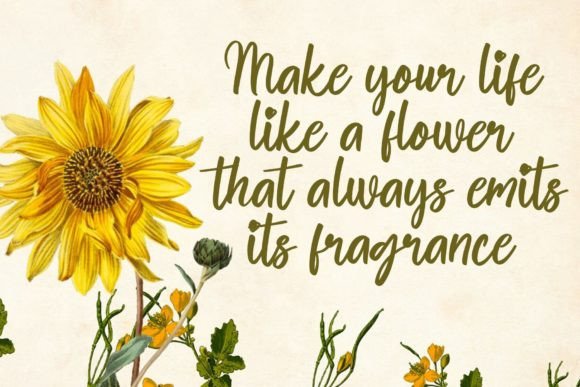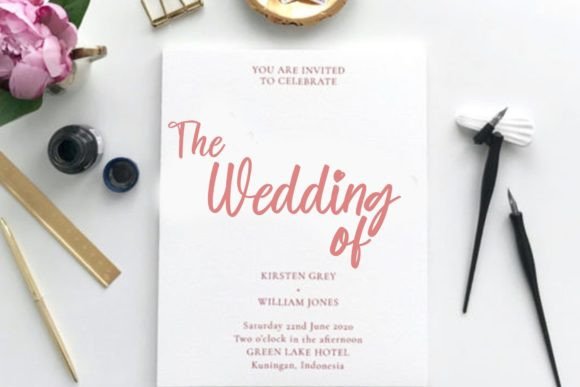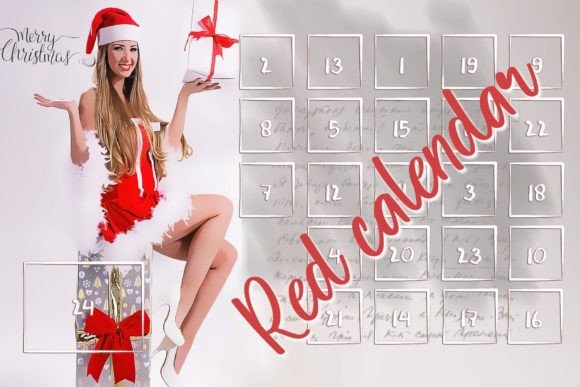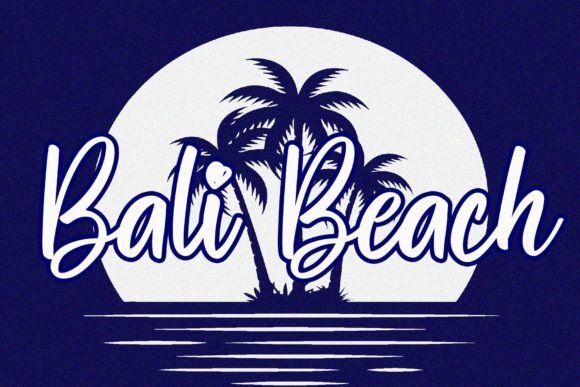
Unleash Your Creativity with Brilliant Font
Have you ever stared at a blank page, trying to spark inspiration for your next design project? The cursor blinks, and your mind goes blank. It’s a moment we’ve all experienced at some point. But what if I told you there’s a secret ingredient to make your designs shine? Enter Brilliant Font, a cool, simple, and playful handwritten font that can breathe life into your creative projects.
This versatile font is perfect for designers looking to add a unique touch to their work. With Brilliant Font, you can elevate your designs to the next level, making them stand out in a crowded market. Whether you’re working on a logo, brochure, or social media campaign, this font is sure to make a lasting impression. So, why settle for ordinary when you can have Brilliant Font?
- Unique Characteristics: Brilliant Font features a unique blend of modern and vintage elements, with intricate details and subtle flourishes that set it apart from other fonts.
Brilliant Font Review
First off, let’s talk about what works well with the Brilliant Font. ✨ It’s incredibly versatile, and I love how it can be used for both digital and print applications. The font’s modern aesthetic makes it perfect for contemporary designs, and it’s also suitable for more traditional settings when paired with the right typography.
Another great aspect of the Brilliant Font is its excellent legibility. ✨ The font’s design ensures that the text is clear and easy to read, even at smaller font sizes. This makes it an excellent choice for body text in long-form content or for use in interfaces where readability is crucial.
While the Brilliant Font is a solid choice, there are a few limitations to be aware of. ⚠️ For one, it may not be the best choice for extremely formal or traditional settings, as its modern design may not be suitable for such contexts. Additionally, the font’s versatility can sometimes make it feel a bit generic or unremarkable.
Another limitation is the lack of bold weights in some font styles. ⚠️ While the font’s regular weight is excellent, the lack of bold alternatives can make it difficult to create visual hierarchies or emphasis in certain designs.
Overall, I’d say the Brilliant Font is a solid choice for designers looking for a modern, versatile font. While it may not be the best choice for every project, it’s an excellent option for a wide range of applications.
- ✨ Versatile and suitable for both digital and print applications
- ✨ Excellent legibility and clear typography
- ⚠️ May not be suitable for extremely formal or traditional settings
- ⚠️ Lack of bold weights in some font styles
Tips for Getting the Most Out of Brilliant Font
For the best results, use the Brilliant Font in conjunction with a clear and simple design. Avoid using the font for large blocks of text, as it is best suited for headings and titles.
The Brilliant Font is ideal for creating modern and professional-looking designs, such as:
- Business cards and letterheads
- Presentations and reports
- Marketing materials and brochures